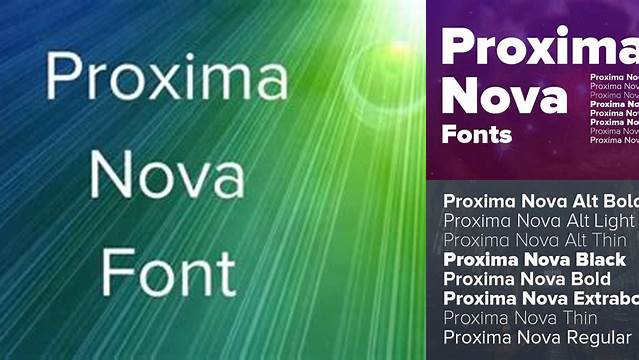
Free Proxima Nova Font: Download Guide & Alternatives
Hey guys! Are you on the hunt for the Proxima Nova font family but don't want to break the bank? You've come to the right place! Proxima Nova is a super popular font, known for its clean and modern look, making it perfect for a ton of different projects. Whether you're designing a website, creating marketing materials, or just playing around with typography, Proxima Nova can really elevate your work. But let's be real, not everyone wants to shell out the cash for a premium font. So, we're going to dive into where you might find a free download of Proxima Nova, explore some legit alternatives, and give you some tips on using fonts effectively in your designs. Let’s get started!
Proxima Nova Font Family: An Overview
Before we dive into alternatives, let's talk about why the Proxima Nova font family is so popular. It's a sans-serif font designed by Mark Simonson, and it's loved for its versatility and readability. The font family includes a wide range of weights and styles, from thin and light to bold and black, making it suitable for everything from headlines to body text. Its clean, geometric design gives it a modern and professional feel, which is why you see it used everywhere – on websites, in logos, and in print materials. The Proxima Nova font has a neutral appearance, which means it pairs well with many other fonts, giving designers a lot of flexibility. Understanding its characteristics will help you find the best alternatives if you can't get your hands on the real deal.
Before you go hunting for a free download of Proxima Nova or any other font, it's crucial to understand font licensing. Font licenses dictate how you can use a font, including whether it's for personal or commercial projects, how many users can access it, and whether you can embed it in digital documents. Different fonts come with different types of licenses, so it's essential to read the fine print before using a font in your work. Using a font without the proper license can lead to legal issues and fines, so it's always better to be safe than sorry. When in doubt, contact the font foundry or distributor to clarify the terms of the license. Understanding font licensing will save you a lot of headaches in the long run.
The Risks of Illegal Font Downloads
We've touched on this, but it's worth emphasizing: downloading fonts from unofficial sources can be risky. These sites often bundle fonts with malware, viruses, and other malicious software that can harm your computer and compromise your data. Additionally, using illegally downloaded fonts can lead to legal consequences, including fines and lawsuits. Font designers and foundries rely on licensing fees to support their work, and using pirated fonts undermines their ability to create new and innovative typefaces. So, while the temptation of a free Proxima Nova font might be strong, it's simply not worth the risk. Stick to reputable sources and legal alternatives to protect yourself and support the design community.
Where to Legally Purchase Proxima Nova
If you absolutely love Proxima Nova and want to use it legally, the best option is to purchase a license from a reputable font foundry or distributor. MyFonts and Fontspring are two popular options that offer a wide selection of fonts, including Proxima Nova. When you purchase a license, you'll typically have different options to choose from, depending on your needs. For example, you might be able to purchase a license for a single user or a license for an entire company. You'll also need to consider whether you need a desktop license, a web license, or both. While purchasing a font license might seem expensive, it's a worthwhile investment if you plan to use the font extensively in your work. Plus, you'll have peace of mind knowing that you're using the font legally and supporting the designers who created it.